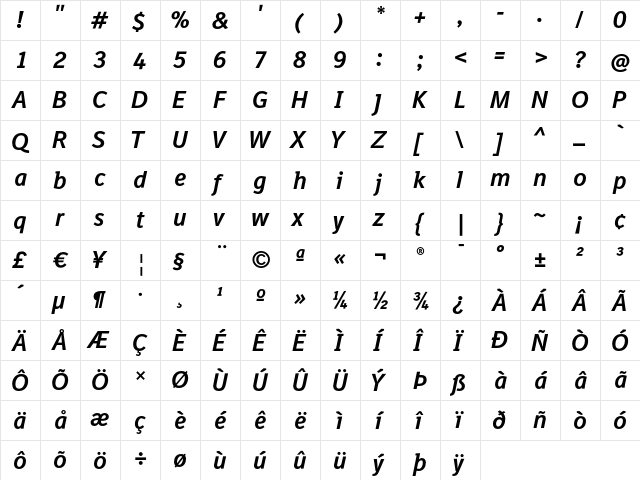
BISans BoldItalic
Design Context for BISans Typeface
BISans offers clean, dependable letterforms without strong stylistic allegiance, making it a practical choice for designers who need flexibility. The dynamic lean of this cut emphasises speed and emphasis in any layout. The heavy weight commands attention and anchors typographic hierarchies.
Pro Tip: Use BISans for emphasis, pull quotes, and subheadings where its slanted energy can add rhythm to the layout.